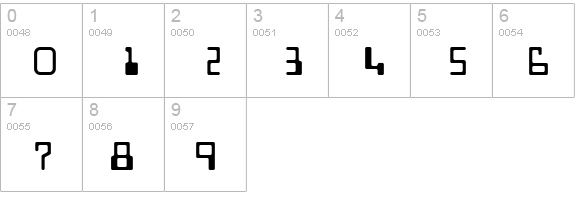
CheckNums-MICR Regular Font Details
CheckNums-MICR Regular is the standard, neutral variant in the CheckNums typeface family \xE2\x80\x94 well suited to general body text, paragraphs, and standard typographic work.
CheckNums-MICR Regular font is a versatile and professional typeface designed specifically for use in financial documents, checks, and banking materials. Its clean and easy-to-read design makes it perfect for ensuring accuracy and clarity in printed materials. The CheckNums-MICR Regular font features the distinctive Magnetic Ink Character Recognition (MICR) style, making it ideal for encoding bank account numbers, routing numbers, and other important financial information. This font is available for free download at FontsMarket.com, making it easily accessible for designers, businesses, and individuals looking to add a touch of professionalism to their financial documents. With its sharp lines and precise spacing, CheckNums-MICR Regular font is a reliable choice for creating secure and professional-looking printed materials. Upgrade your financial projects with the CheckNums-MICR Regular font today and enhance the readability and authenticity of your documents.